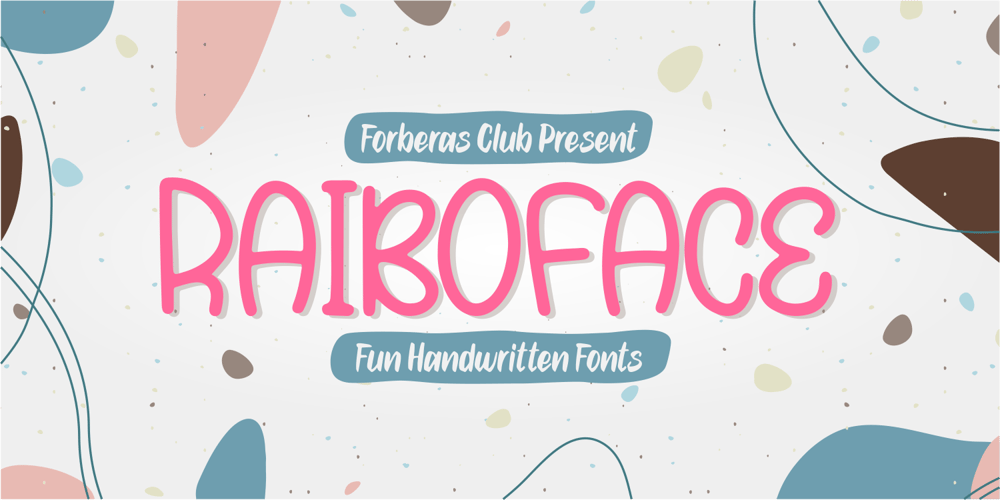
Rainboface
Rainboface font
Rainboface Font Family was designed by ANGGI HERMAWAN and published by Forberas Club. Rainboface contains 1 styles and family package options. This cute font create with love and inspired below the rainbow. When the rain is coming, the rainbow definitely will blooming. So what make you think twice? just grab it fast, crafter should do crafting. The magical weapon is here, do your thing as invitation card, greeting card, gift card, or wedding decoration this font sure ready for you.